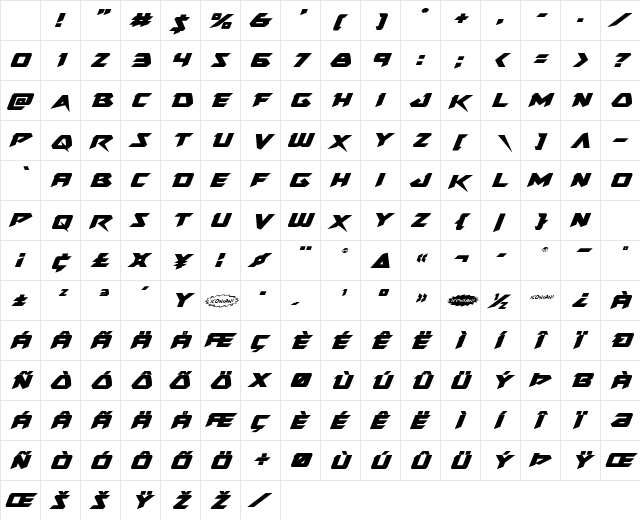
Skirmisher Expanded Italic Expanded Italic
Style: Expanded Italic
Complete Skirmisher Expanded Italic glyph index. Displaying only characters natively supported by Skirmisher Expanded Italic font.
Design Context for Skirmisher Expanded Italic
Skirmisher Expanded Italic is a composed and adaptable typeface that performs quietly and consistently across a wide range of design contexts. The slanted form adds forward momentum and visual energy.
Pro Tip: Use Skirmisher Expanded Italic for emphasis, pull quotes, and subheadings where its slanted energy can add rhythm to the layout.